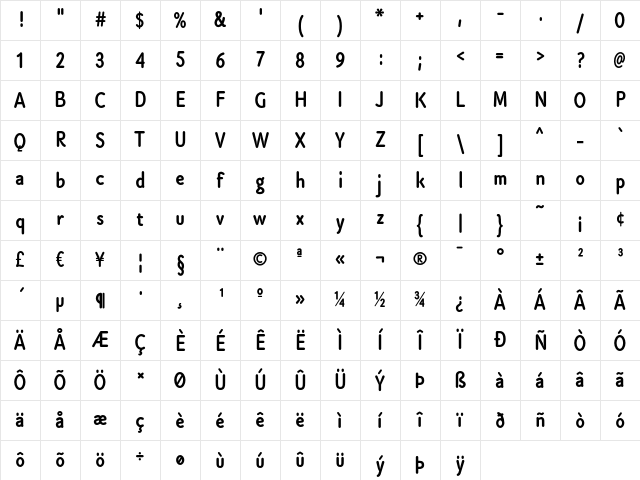
Complete Cen Pro Bold glyph index. Displaying only characters natively supported by Cen Pro Bold font.
Cen Pro is a composed and adaptable typeface that performs quietly and consistently across a wide range of design contexts. Its bold stroke weight gives it real presence on the page.